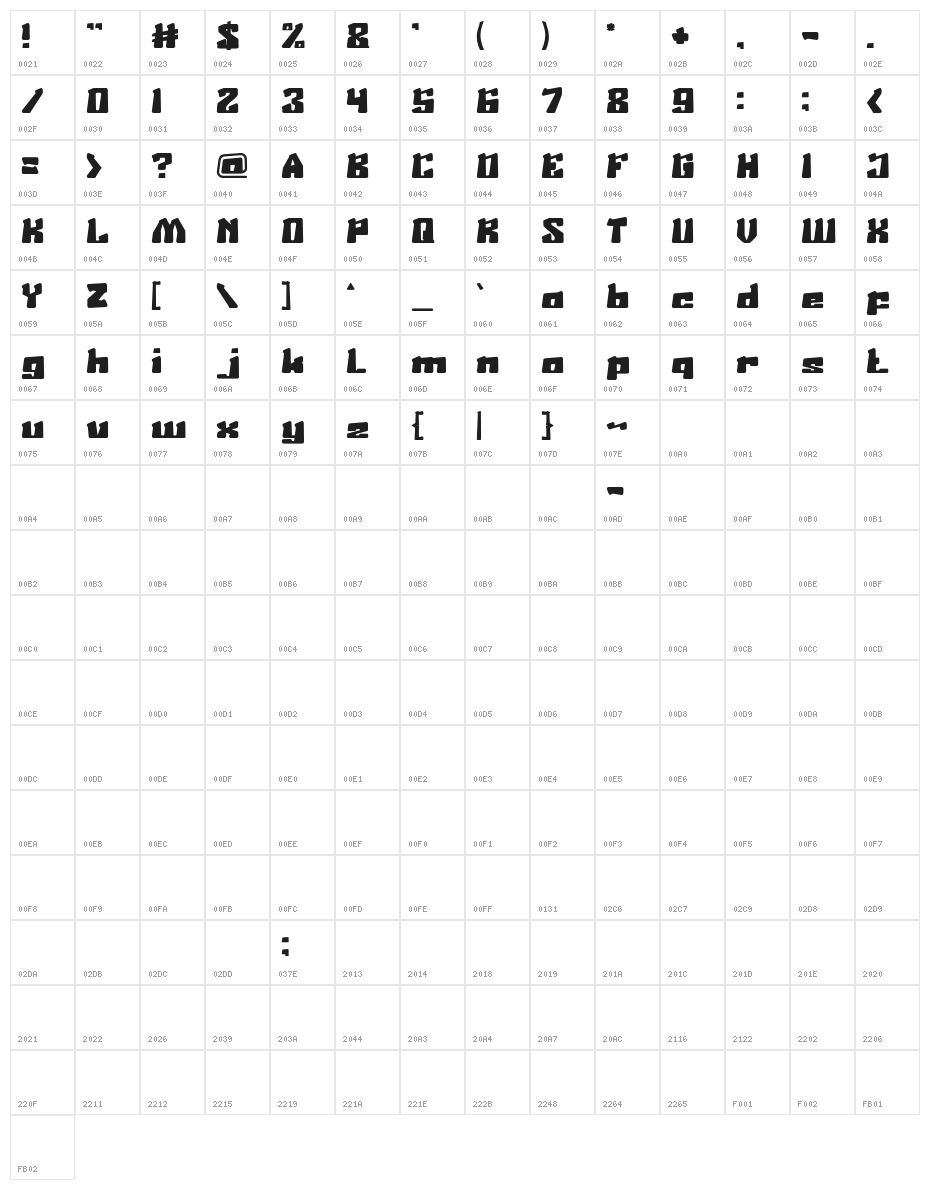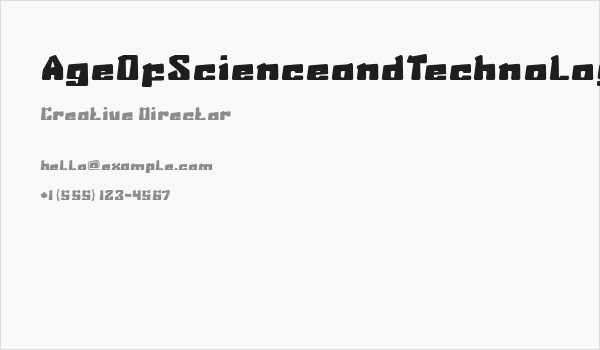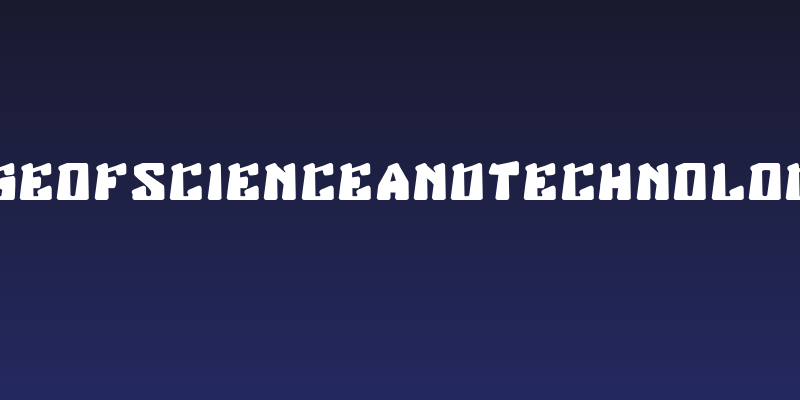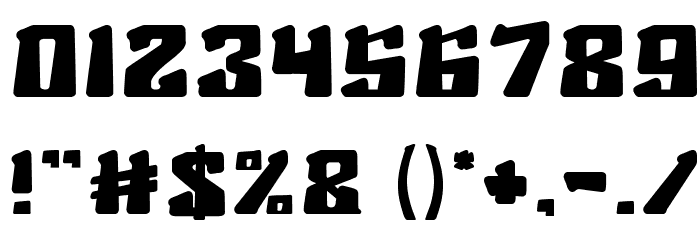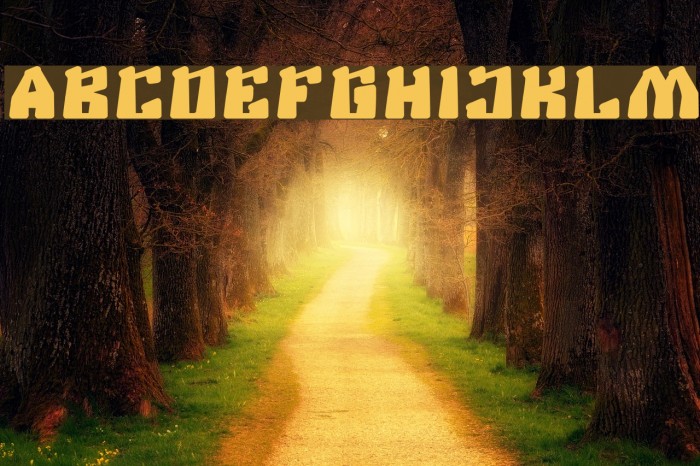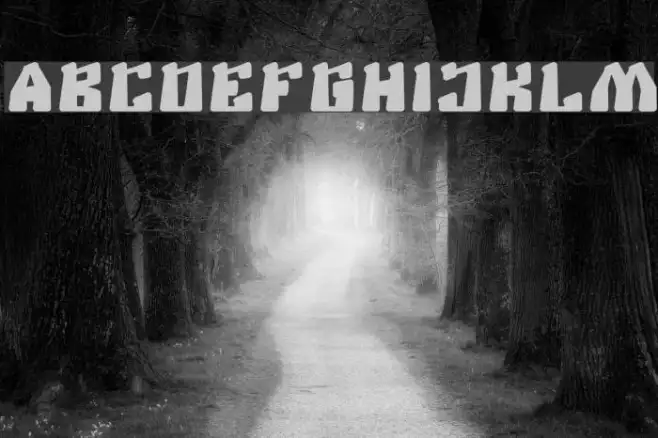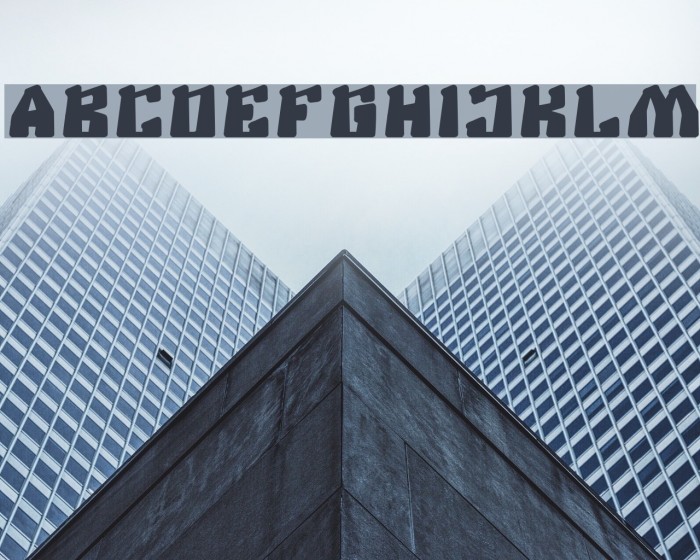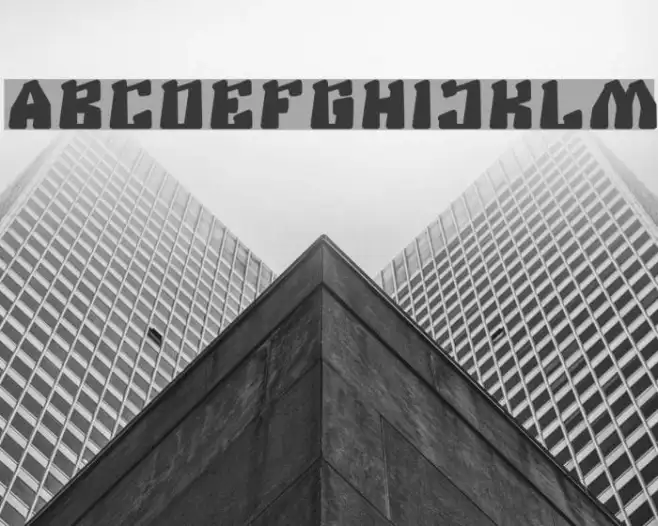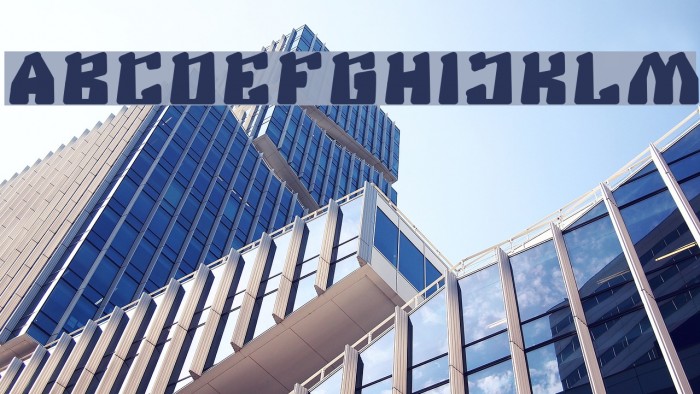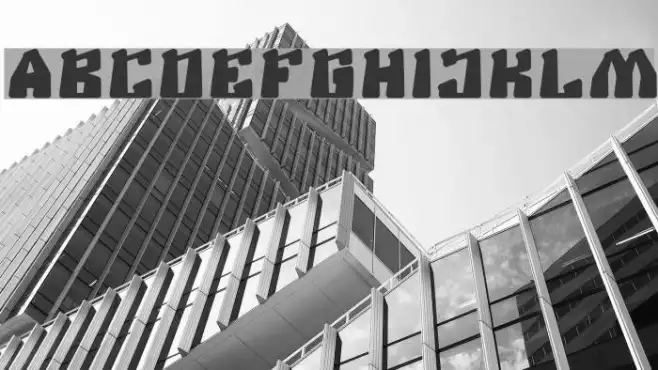
AgeOfScienceandTechnology Font
AgeOfScienceandTechnology Description
This font features a bold and robust design with a distinctly futuristic and technological feel. The characters are blocky and angular, with sharp edges and a strong presence. Each letter is crafted with a unique geometric style that gives it a modern and industrial look. The uppercase and lowercase letters maintain a consistent weight, contributing to the font's uniformity and balance. The numerals and special characters follow the same design principles, ensuring a cohesive appearance across all glyphs. This font is ideal for projects that require a bold statement and a contemporary aesthetic.
| Proposed Projects | Ideal for technology-themed posters, video game titles, sci-fi book covers, and branding for tech companies. |